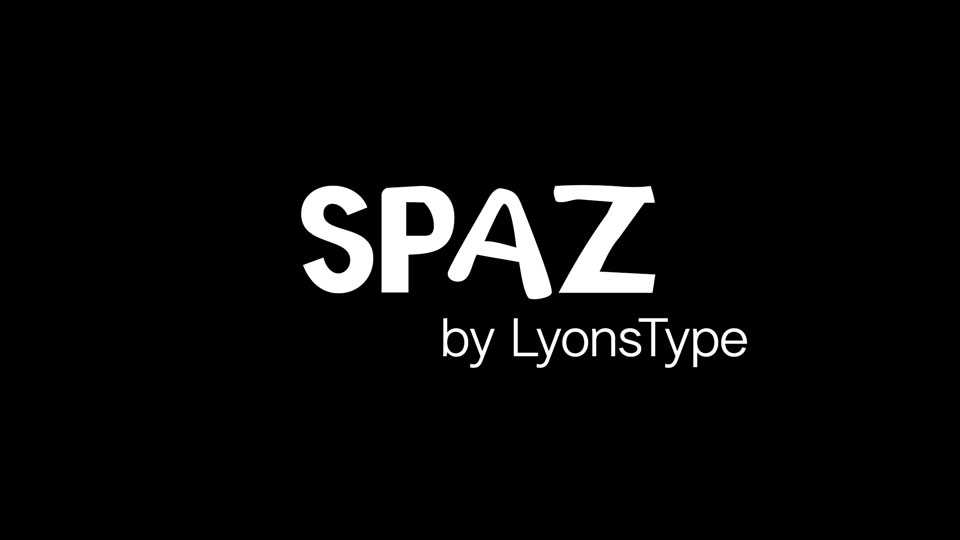
Download LT Spaz font, a playful and delightfully irregular typeface that adds a whimsical touch to your designs. LT Spaz font embraces the charm of unpredictability, featuring letters with distinct shapes and playful variations.
Designer: LyonsType